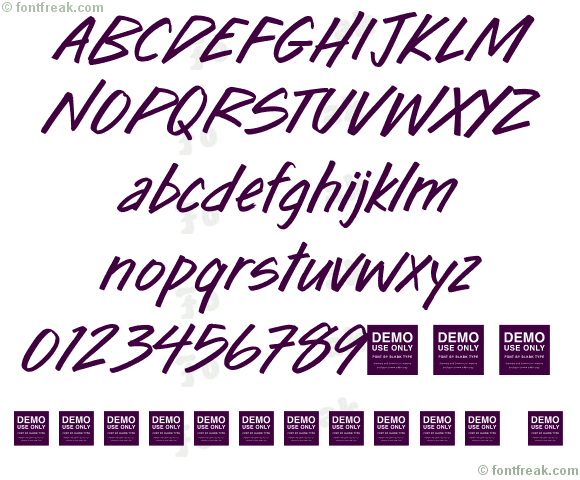
Flex Bender
Flex Bender by BLKBK Fonts is a striking display font that seamlessly blends modern flair with a playful twist. This unique typeface features a dynamic style characterized by its fluid, bouncy strokes and varying weights that create an engaging visual rhythm. The design showcases a moderate contrast between thick and thin lines, contributing to its lively personality. The ample spacing between letters enhances readability while allowing the font to maintain its whimsical charm, making it perfect for capturing attention in a variety of contexts.
Flex Bender’s versatile aesthetic makes it an excellent choice for several specific use cases. Its playful yet sophisticated appearance is ideal for branding small businesses, such as artisanal bakeries and boutique shops, where a friendly yet professional vibe is essential. Additionally, this font shines in creative applications like wedding invitations, where its elegant curves can convey joy and celebration. It also works well for eye-catching movie posters, allowing titles to stand out with character. Content creators will appreciate its use in social media graphics and promotional materials, where a distinctive style can enhance engagement.
What truly sets the Flex Bender font apart is its ability to blend playfulness with professionalism, creating a unique visual identity that draws the eye. Whether you’re designing a logo or crafting an invitation, this font is sure to elevate your work. Don’t miss out on the opportunity to incorporate this dynamic typeface into your designs with the Flex Bender font free download today.